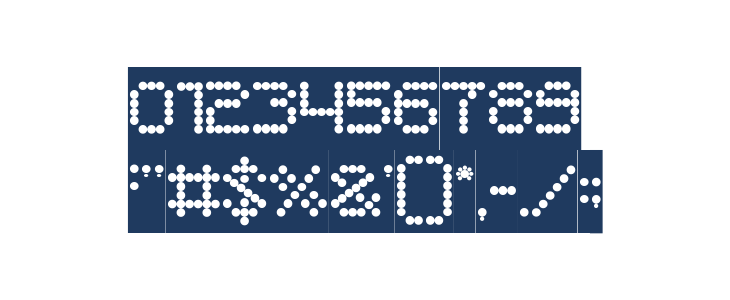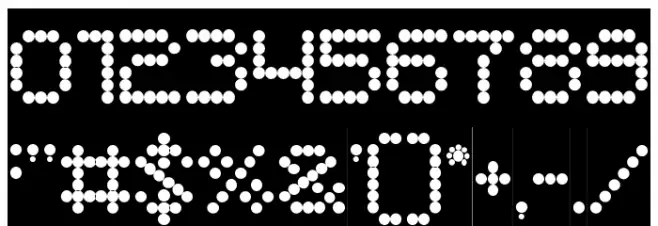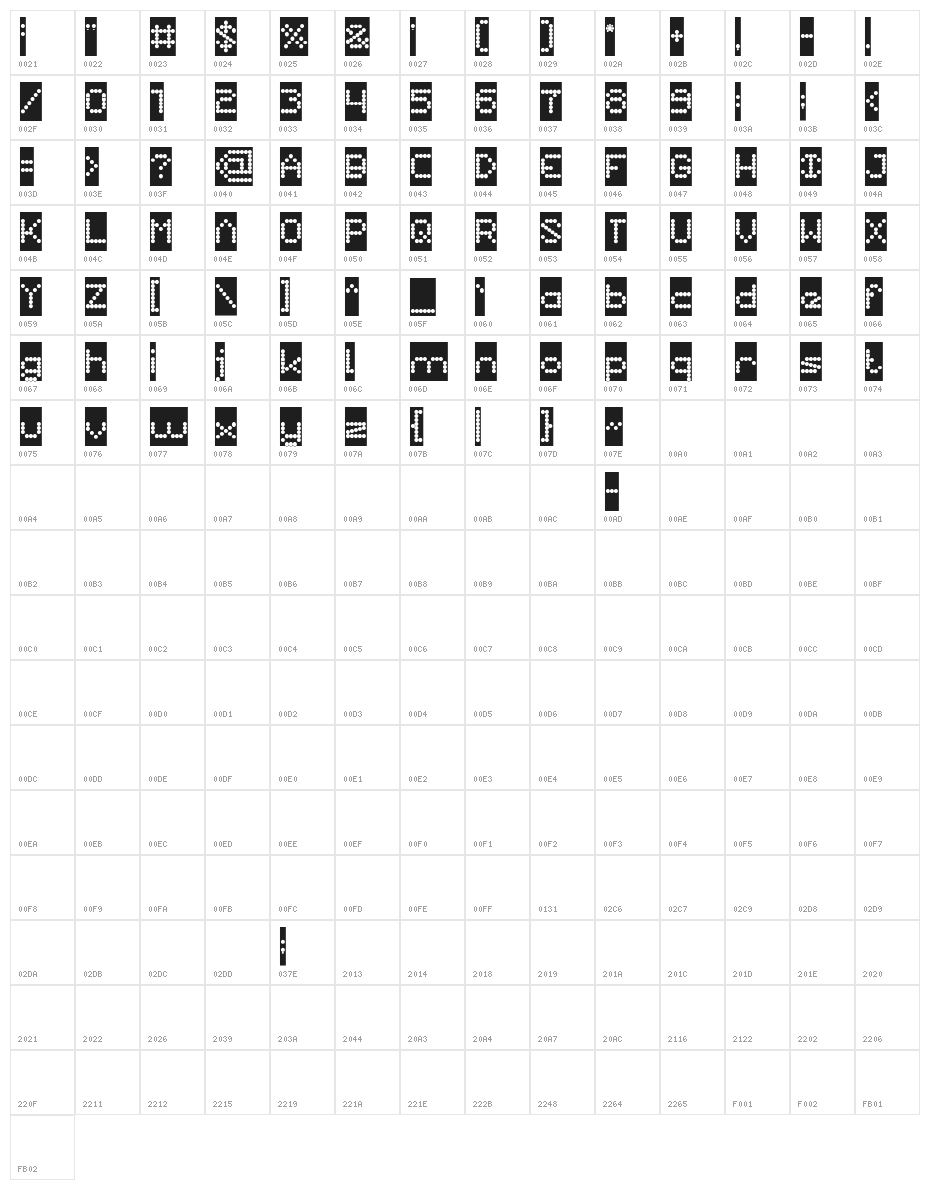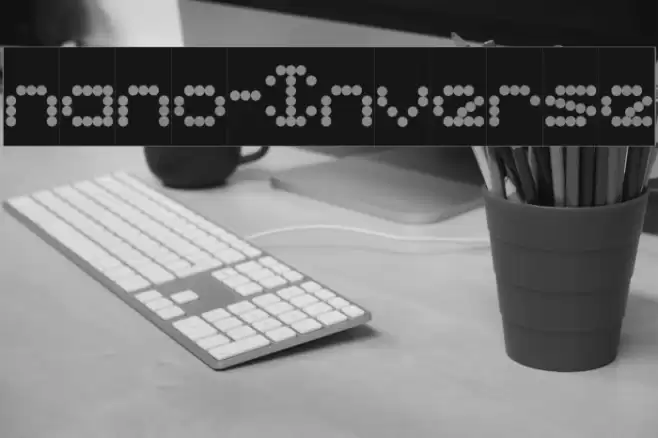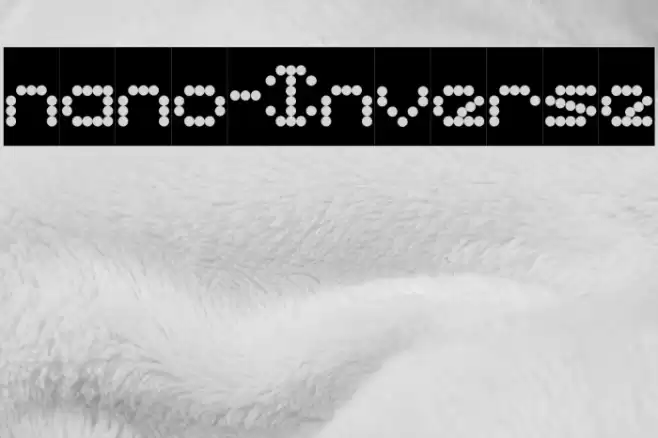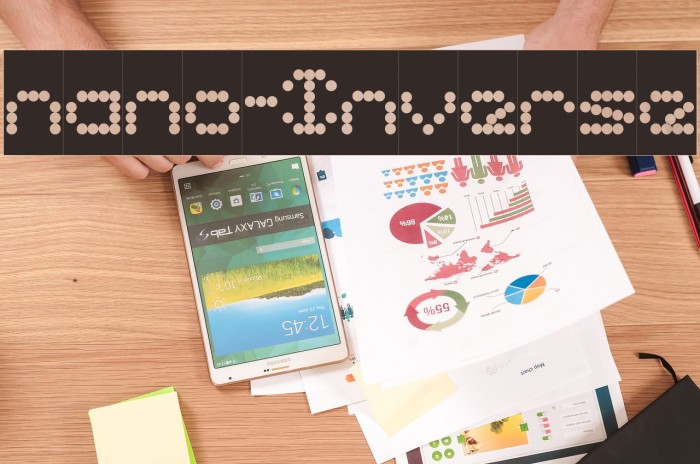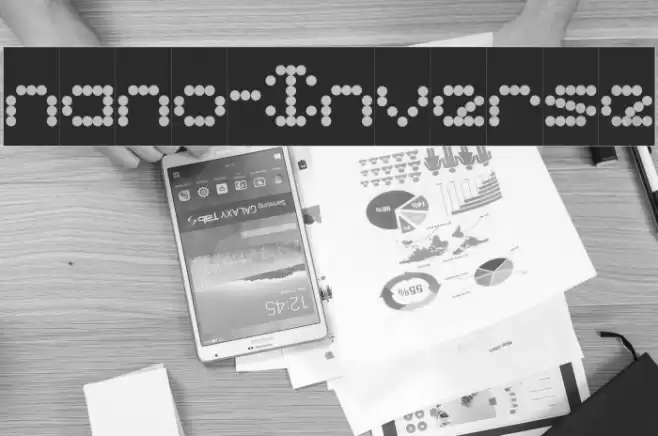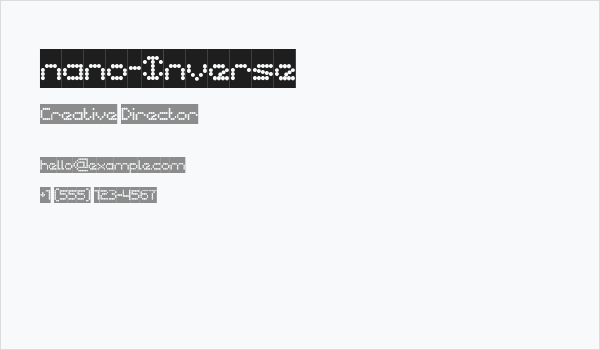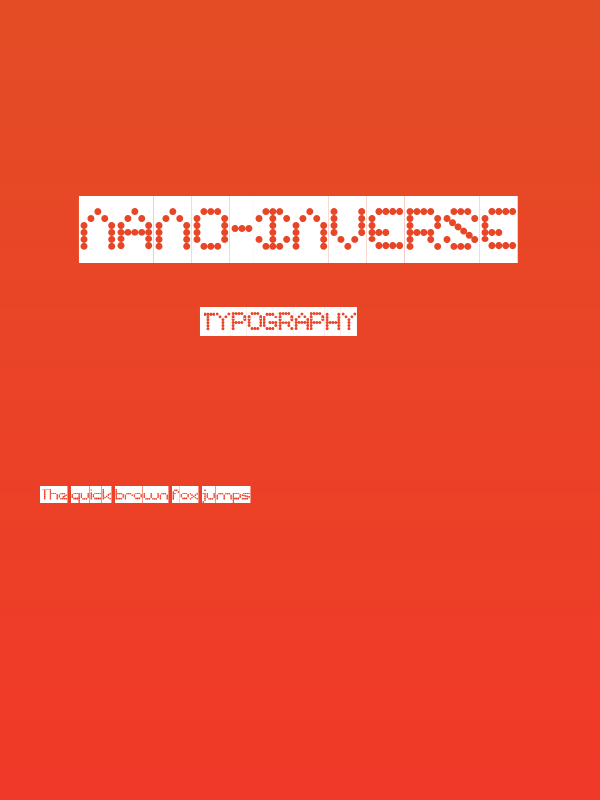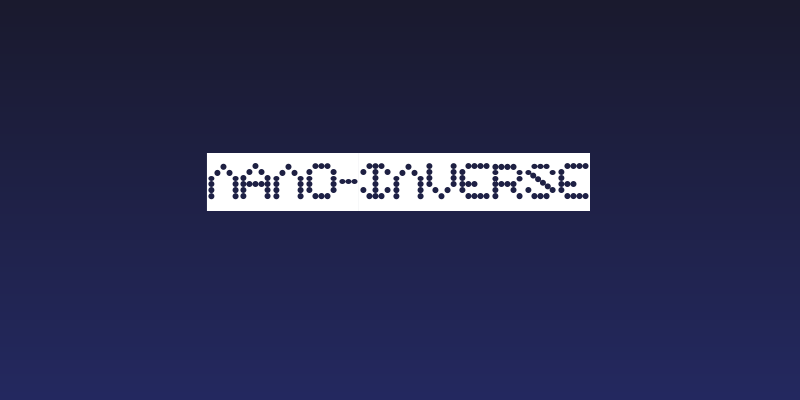
nano-Inverse Font
nano-Inverse Description
This font features a unique design composed entirely of small, evenly spaced dots forming each character. The letters and numbers are constructed with a consistent grid-like pattern, giving it a digital and futuristic appearance. The characters maintain a uniform height and width, providing a balanced and cohesive look. The font is highly legible despite its unconventional style, making it suitable for creative and modern applications. The use of dots creates a pixelated effect, reminiscent of early digital displays or LED screens. This design choice adds a playful and innovative touch, making it stand out in various design contexts.
| Proposed Projects | Ideal for digital art projects, tech-themed designs, modern posters, and innovative branding. |